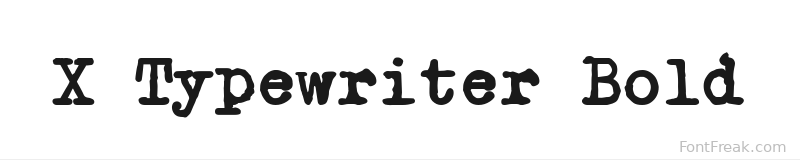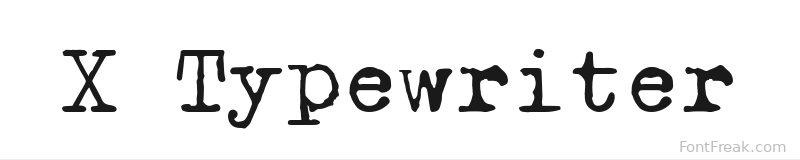
X Typewriter
X Typewriter Bold
The X Typewriter font by GGBot is a striking display typeface that captures the essence of vintage typewriter aesthetics. As a decorative font, it showcases a unique blend of charm and nostalgia, making it perfect for projects that aim to evoke a sense of history or artistry. The font features a bold stroke weight, which adds a sense of presence and gravitas to any text. Its irregularities in letterforms reflect the imperfections of traditional typewriter output, giving it a handcrafted feel. The spacing is well-balanced, allowing for easy readability while maintaining an authentic typewriter style.
X Typewriter is exceptionally versatile, making it suitable for a variety of creative applications. It shines in contexts such as wedding invitations, where its nostalgic quality can impart a personal touch. For movie posters, the boldness and unique character of the font can help capture attention and convey themes of vintage or retro narratives. Restaurant menus can benefit from its distinctive charm, setting the tone for a cozy, inviting dining experience. Additionally, content creators and bloggers can use it to add personality to their social media graphics and websites, enhancing their brand identity.